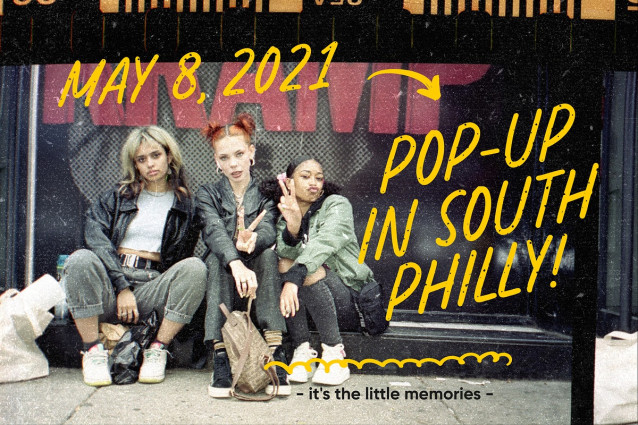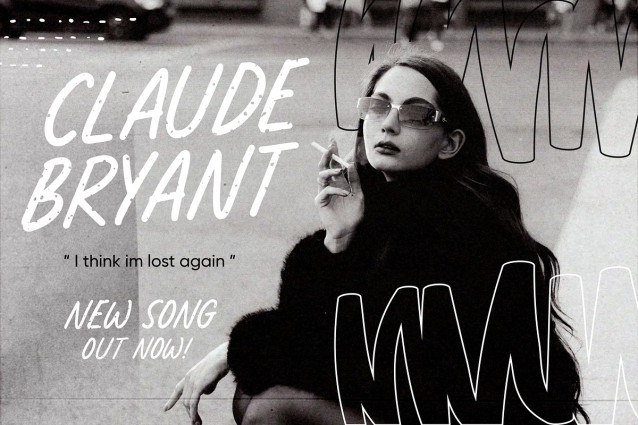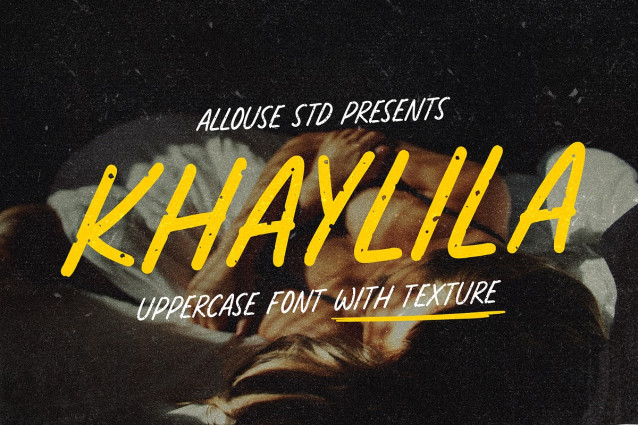
Khaylila Font
Khaylila Font is perfect for any titles, logo, product packaging, branding project, megazine, social media, wedding, or just used to express words above the background.Khaylila also come with Multi-Lingual Support.Enjoy the font, feel free to comment or feedback, send me PM or email. Thank You!